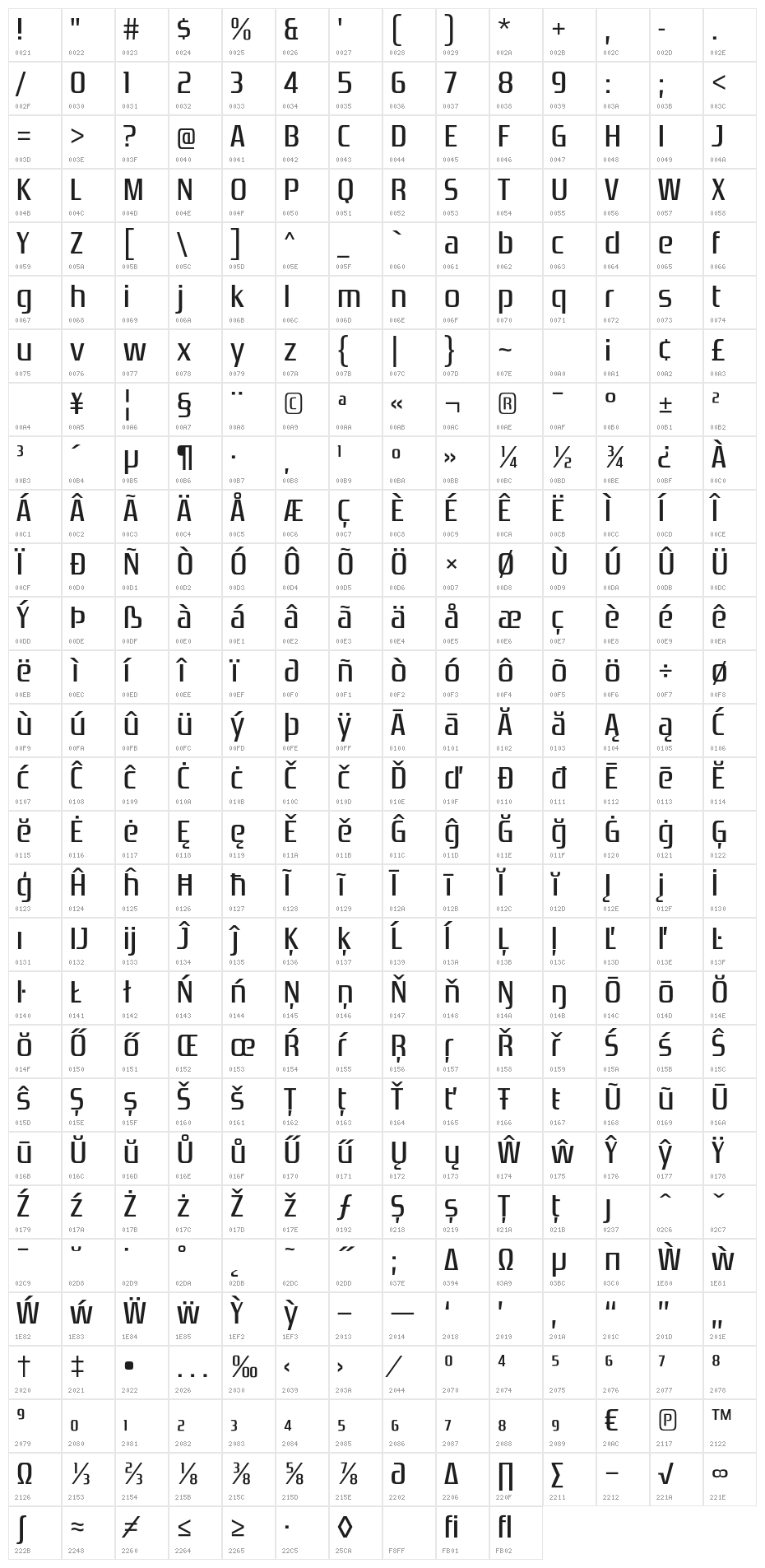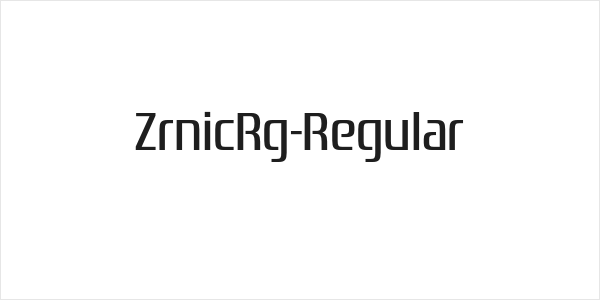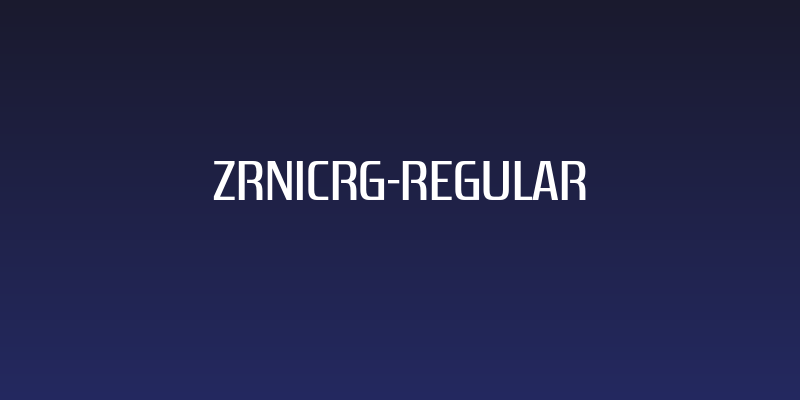
ZrnicRg-Regular Font
ZrnicRg-Regular Description
This font features a modern and sleek design with clean lines and a geometric structure. The characters are uniform in width, providing a balanced and harmonious appearance. The uppercase letters are bold and assertive, while the lowercase letters maintain a consistent style with slightly rounded edges, adding a touch of softness to the overall look. The numerals are clear and easy to read, making them suitable for various applications. The special characters are well-integrated, maintaining the font's cohesive aesthetic. This font is versatile and can be used in both digital and print media, offering a contemporary feel that is both professional and approachable.